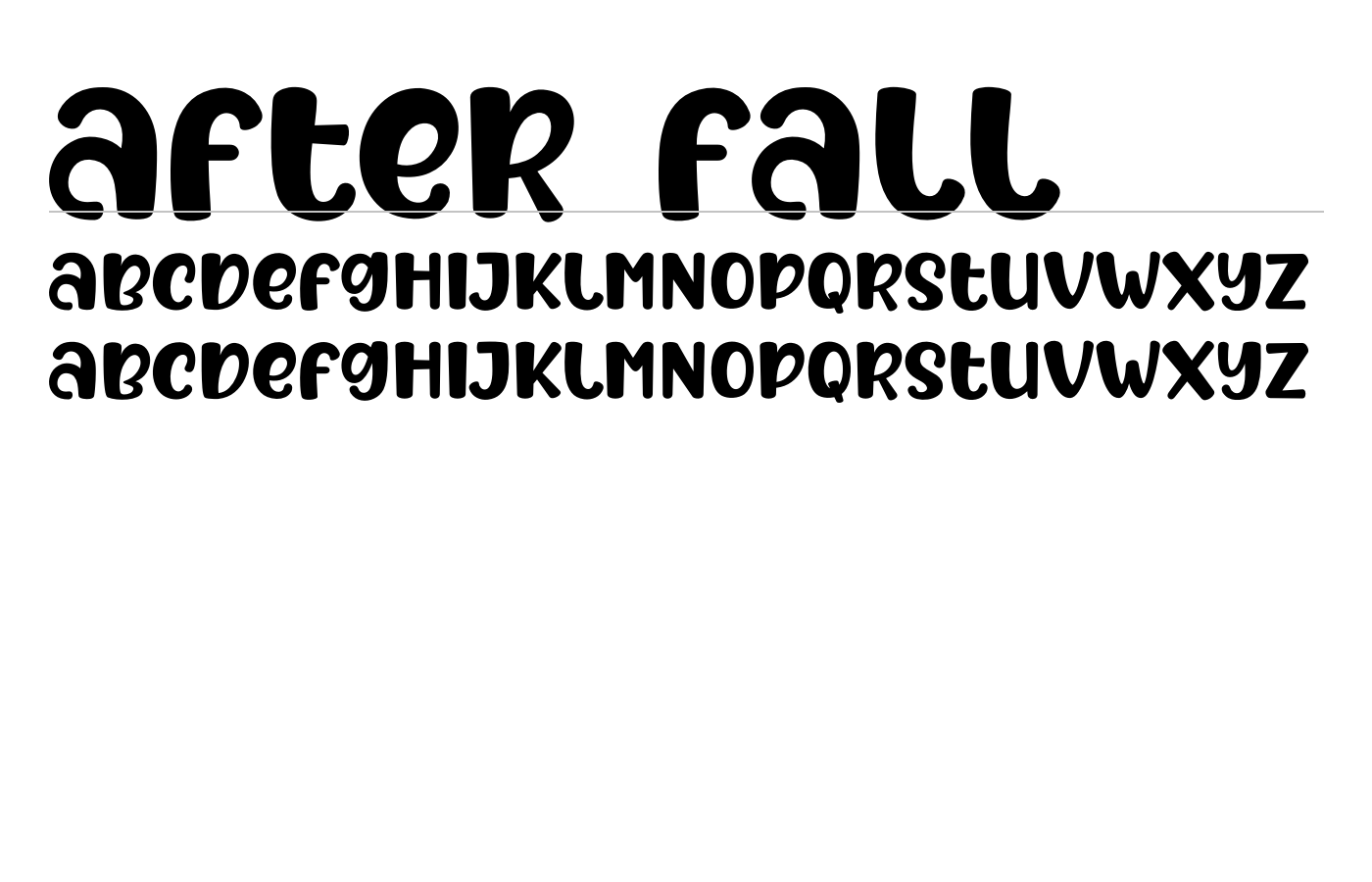
After Fall is a playful, rounded sans serif font with a friendly and casual feel. Its thick, soft strokes and whimsical letterforms make it ideal for fun, approachable branding, children’s projects, or creative headlines. This font works best in designs that want to convey warmth and lightheartedness, such as logos, posters, and packaging.
After Fall Font
About After Fall Font
| Designer | Rangga Singgih Subekti |